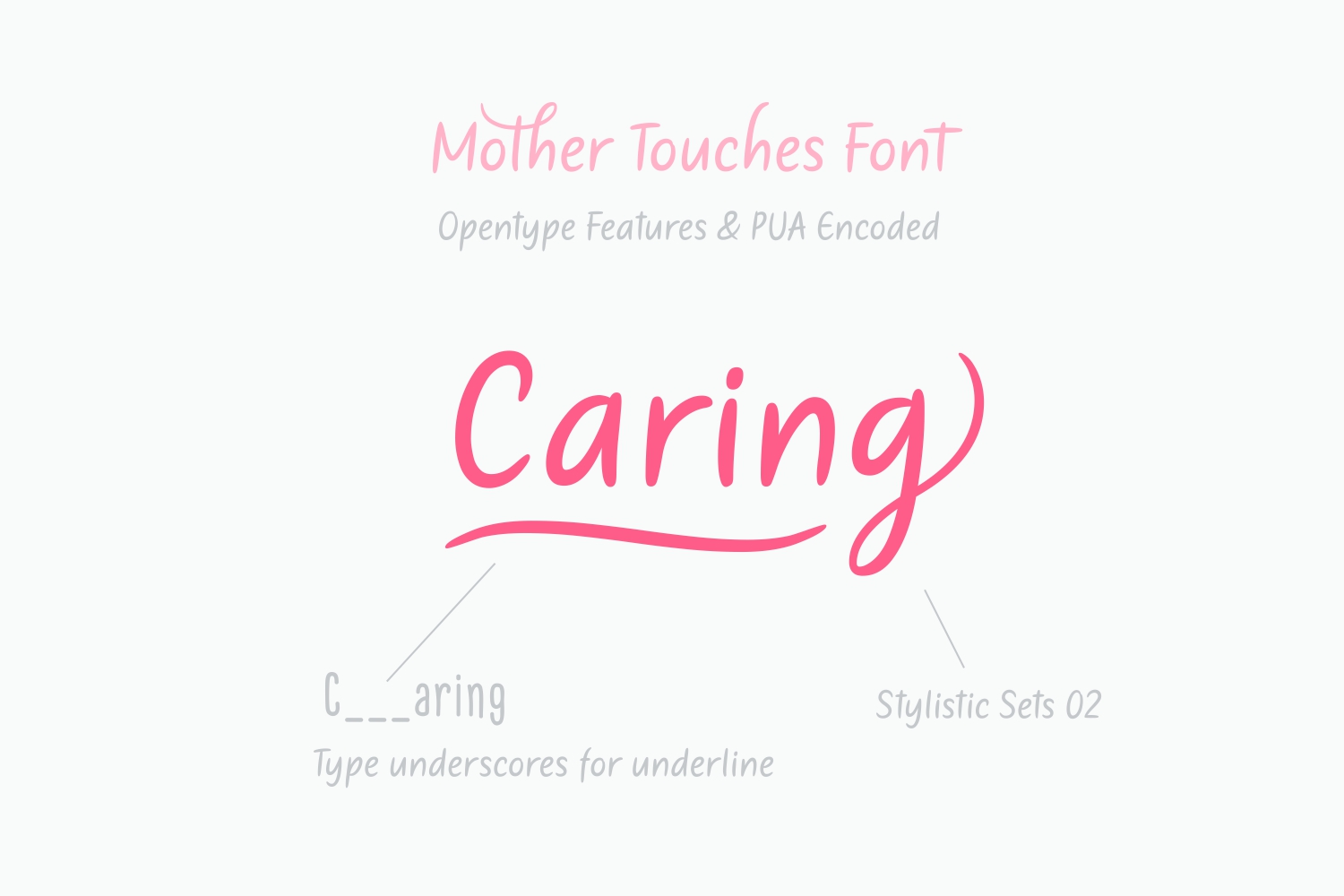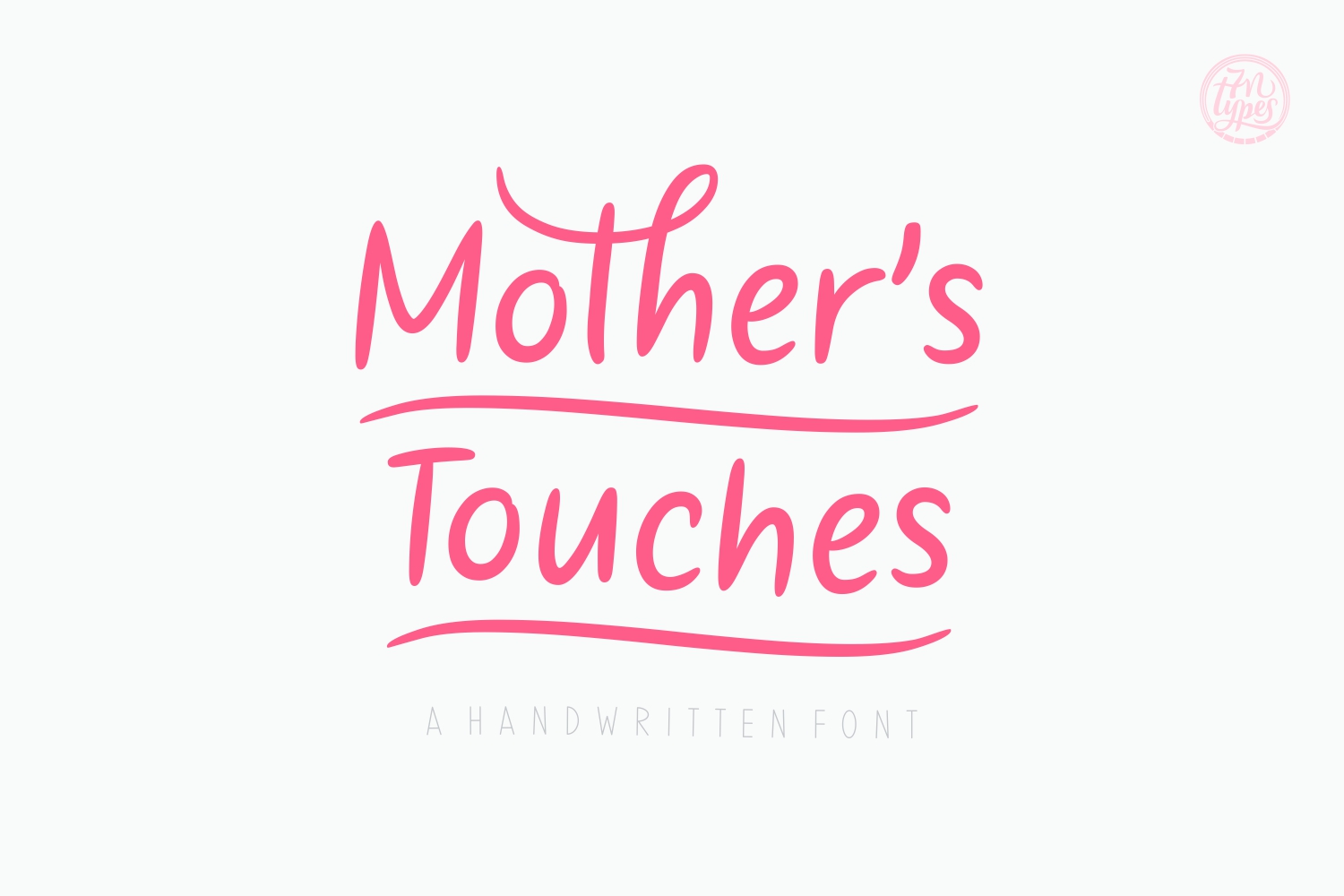
HomeScript FontsMother''s Touches Script Fonts Mother”s Touches FacebookXPinterestWhatsApp 1 of 2 About Mother”s Touches Font Mother’s Touches is a beautiful font, perfect for Mother’s Day oriented designs and more! This handwritten font has a friendly approach, and looks both feminine and reassuring. DOWNLOAD NOW People also explored Quotable Font Black Zone Font Tanuki Font Westonia Font Fairy Land Font Tumbler Font Hello Bunny Font Frames Creator 3.0 Font Greeva Font 266 0 TagsMother''s Touches Font Previous articleJakob”s HandwritingNext articleLet”s Bake Muffins LEAVE A REPLY Cancel reply Comment: Please enter your comment! Name:* Please enter your name here Email:* You have entered an incorrect email address! Please enter your email address here Website: Save my name, email, and website in this browser for the next time I comment. Personal Use Free Elsabetha Personal Use Free Read more about this font Cinderella Personal Use Free Read more about this font Lazy Sunday Personal Use Free Read more about this font Einstaint Personal Use Free Read more about this font BLOG How to Install and Use Fonts on Windows, macOS, and Web Projects How to Install and Use Fonts on Windows, macOS, and Web Projects Fonts are a crucial part of design and branding. Whether you’re designing a... To increase your work productivity, choose the most readable fonts. Top 7 Google Fonts Alternatives for Faster and Privacy-Friendly Web Design (2025) The 10 Best Handwriting Fonts to Add Personality to Your Designs